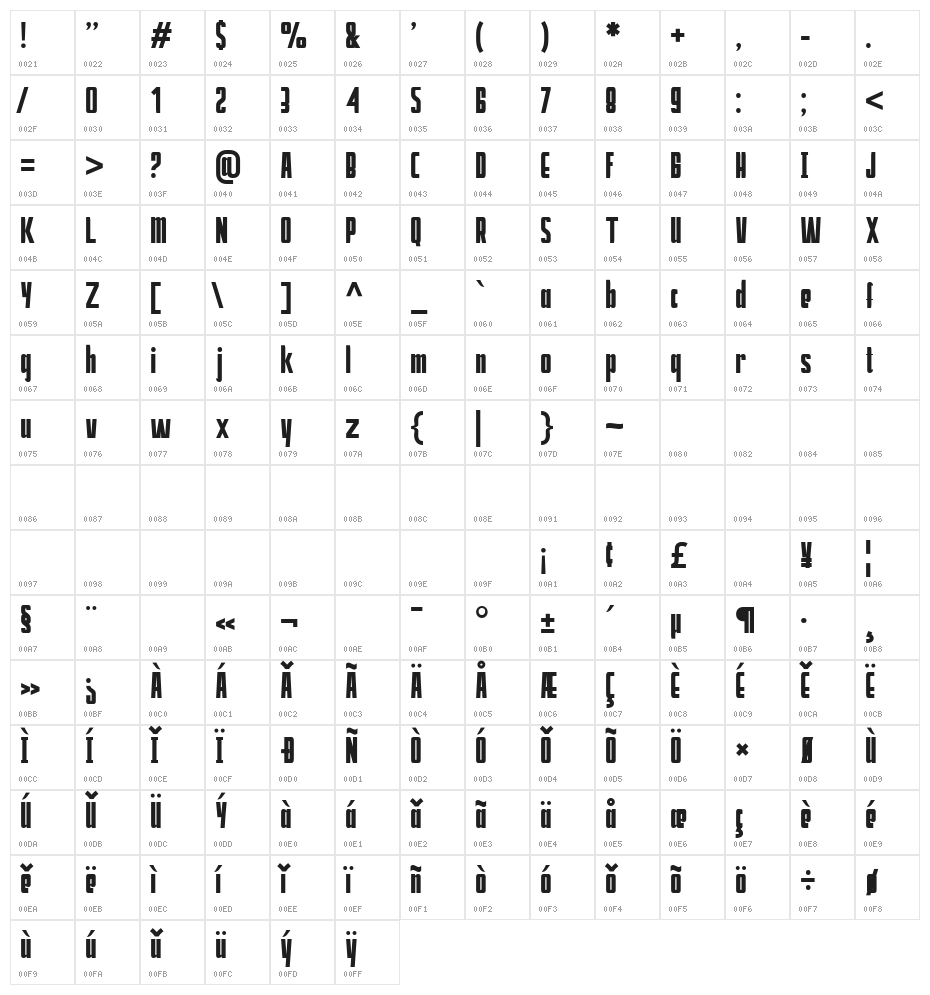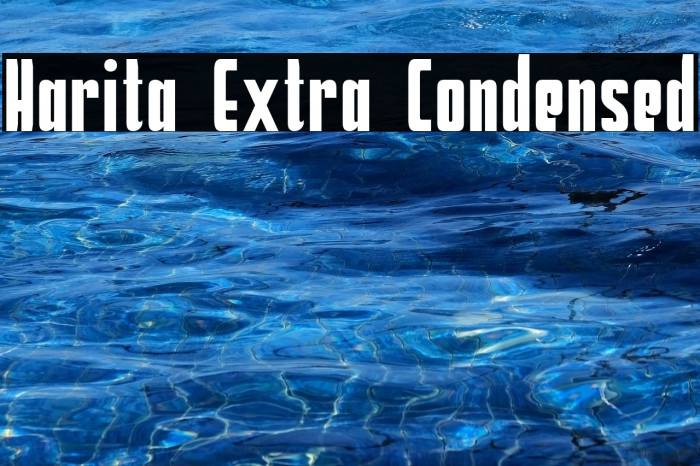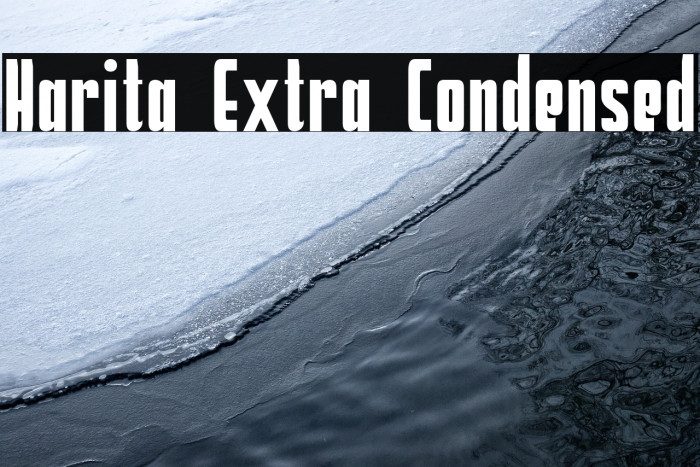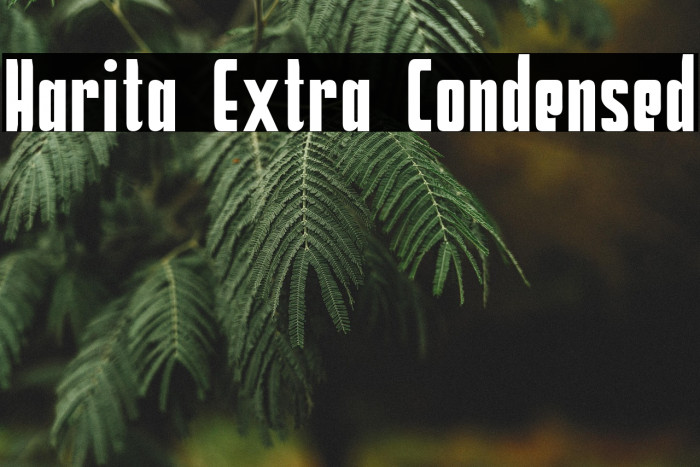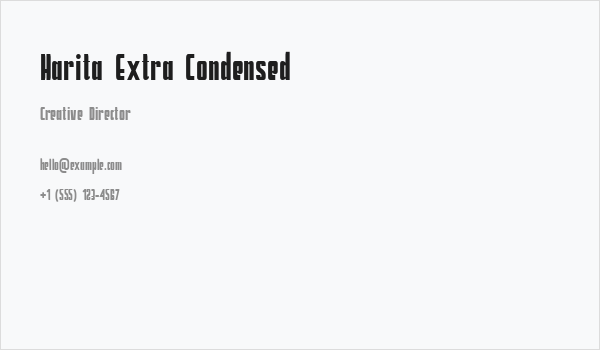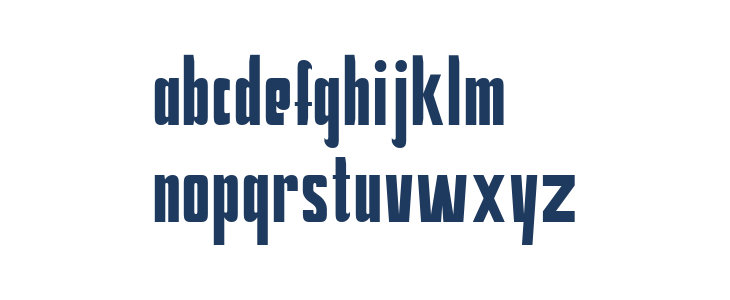
Harita Extra Condensed Font
Harita Extra Condensed Description
This font features an extra-condensed style with bold, impactful letterforms. The uppercase and lowercase characters maintain a consistent height, creating a uniform appearance. The strokes are thick and uniform, contributing to a strong visual presence. The numerals are designed to match the boldness of the letters, ensuring readability and consistency. Special characters are included, maintaining the same bold and condensed style, making this font versatile for various uses. The overall design is modern and assertive, suitable for making a statement in any design project.
| Proposed Projects | Ideal for headlines, posters, branding, and any project requiring a strong visual impact. |